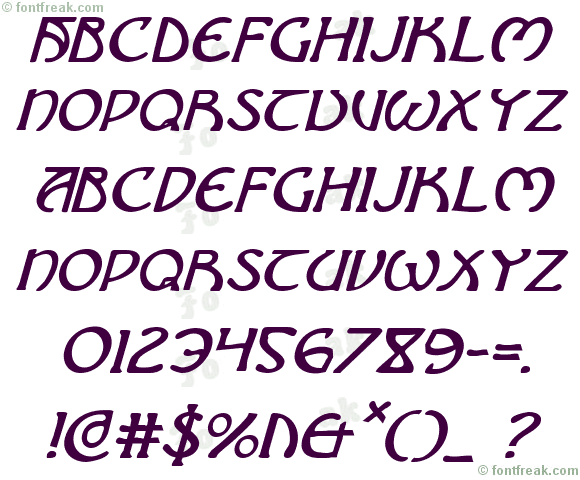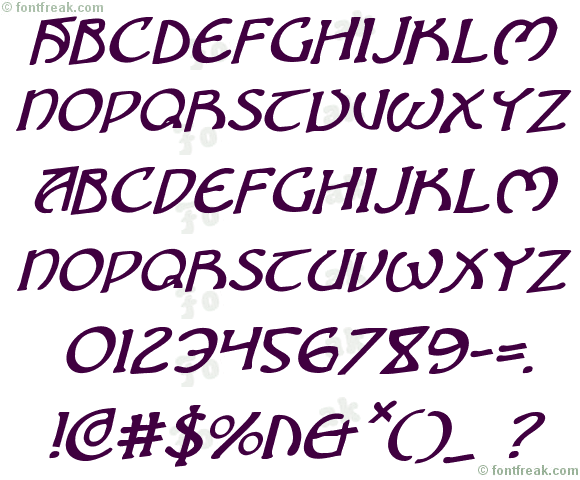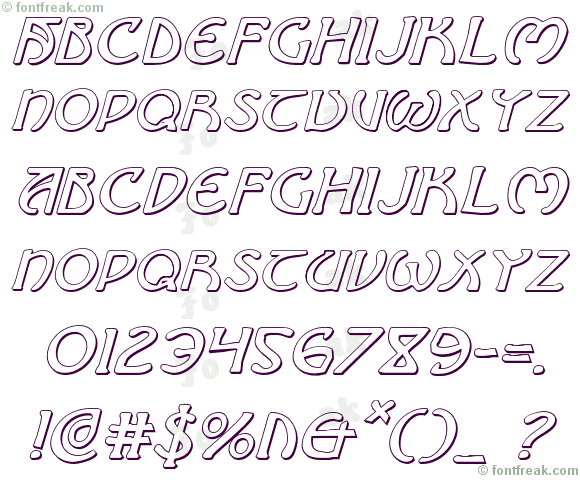
Brin Athyn Bold Italic
Brin Athyn Expanded Italic
Brin Athyn Rotalic
Brin Athyn Italic
Brin Athyn Shadow Italic
Brin Athyn Condensed Italic
Brin Athyn is a striking display font from Iconian Fonts that falls under the category of decorative typefaces. This bold, expanded font features an intriguing blend of rotalic and shadow characteristics, giving it a unique depth and presence that can elevate any design project. The stroke weight is consistently robust, ensuring that the font stands out even in larger formats, while the condensed character spacing creates a compact, cohesive look. Its italicized forms add a dynamic flair, making Brin Athyn an excellent choice for capturing attention.
The visual characteristics of Brin Athyn are both captivating and versatile. The decorative elements, including its shadowed appearance, provide a three-dimensional quality that breathes life into text. This makes Brin Athyn perfect for a variety of creative applications, such as movie posters, where its boldness can convey drama and excitement. Additionally, its unique style makes it suitable for restaurant menus, where it can add a touch of personality and flair. Wedding invitations also benefit from the font's elegant yet playful design, making it ideal for couples looking to make a memorable impression. Finally, graphic designers and content creators will find Brin Athyn invaluable for branding materials, advertisements, and social media graphics, offering a distinctive look that stands out in a crowded market.
Targeted towards graphic designers, small business owners, and content creators, Brin Athyn provides a perfect balance of readability and style. Its availability as a freeware font further enhances its appeal, allowing creatives to harness its potential without financial constraints. The Brin Athyn font free download option ensures that anyone can incorporate this extraordinary typeface into their work, making it a standout choice for those seeking to make a bold statement.